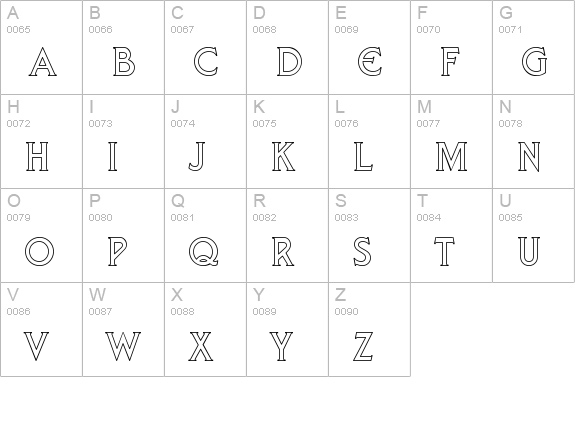
Arnelle Hollow Font Details
Arnelle Hollow is a stunning and elegant display font that exudes a sense of sophistication and charm. Its delicate and intricate hollow design makes it perfect for adding a touch of whimsy to your projects. The unique combination of thin lines and curves creates a captivating visual appeal that is sure to make your designs stand out. What's even better is that Arnelle Hollow is available for free download at FontsMarket.com. This means you can easily access this beautiful font and use it in your personal and commercial projects without any cost. Whether you're working on branding, invitations, posters, or any other design, Arnelle Hollow is a versatile font that will add a touch of elegance and style. Download it now and let your creativity shine with this exquisite typeface.